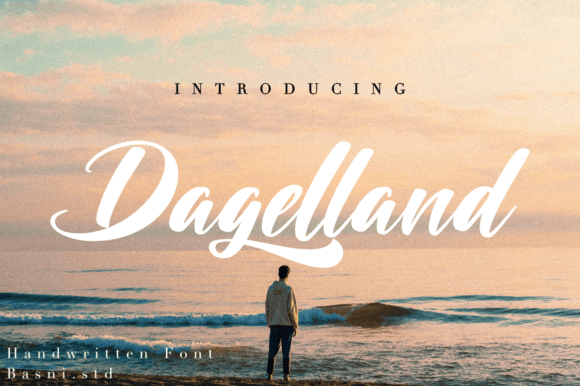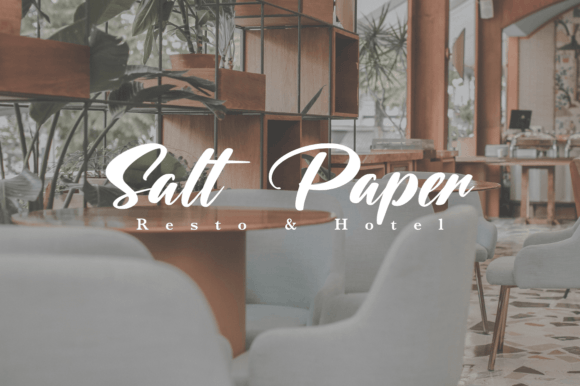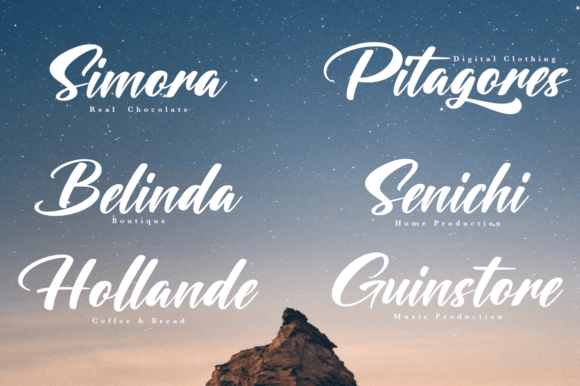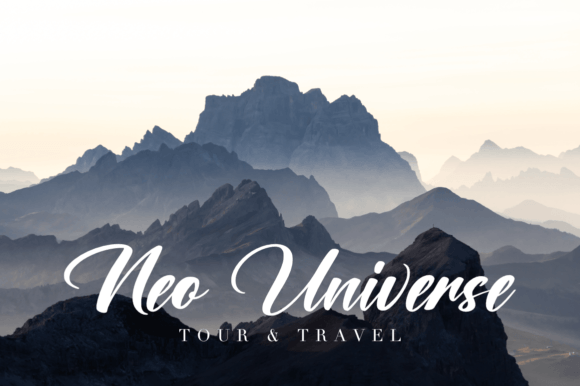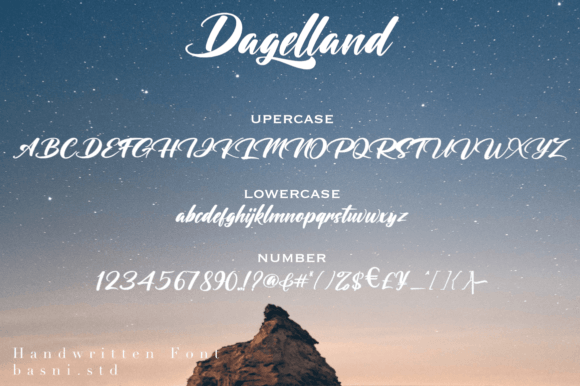
Dagelland Font
About Dagelland Font
Dagelland is a captivating natural handwritten font designed to enhance various creative projects, including branding, websites, invitations, editorials, and more. Its authentic and organic appearance makes it an ideal choice for those seeking a genuine and personalized touch in their designs. By incorporating Dagelland into your favorite creative projects, you can ensure they stand out from the competition and leave a lasting impression on your audience.
One of Dagelland’s key strengths lies in its natural and effortless style. The font captures the essence of handwriting, adding a sense of warmth and authenticity to your text. This natural touch creates a connection with the audience, making your content more relatable and engaging. Whether you’re designing a logo, a website, or an invitation, Dagelland’s handwritten charm adds a unique character, setting your projects apart from generic designs.
Dagelland’s versatility is another standout feature. Its clean and legible characters make it suitable for a wide range of applications. Whether you’re crafting a brand identity, designing a website interface, or creating elegant invitations, this font adapts seamlessly to various contexts, ensuring consistency across different elements of your project.
Incorporating Dagelland into your creative endeavors allows you to infuse a sense of authenticity and creativity. Its natural handwritten appearance adds a personal touch, making your designs feel genuine and approachable. By choosing Dagelland, you enhance the visual appeal of your projects, making them visually compelling and memorable.
By utilizing Dagelland in your branding, websites, invitations, editorials, and other creative ventures, you can elevate your projects to a new level. This font not only enhances the aesthetic quality of your designs but also communicates your message with sincerity and character. Embrace the natural beauty of Dagelland, and let it transform your creative vision into captivating and standout creations.